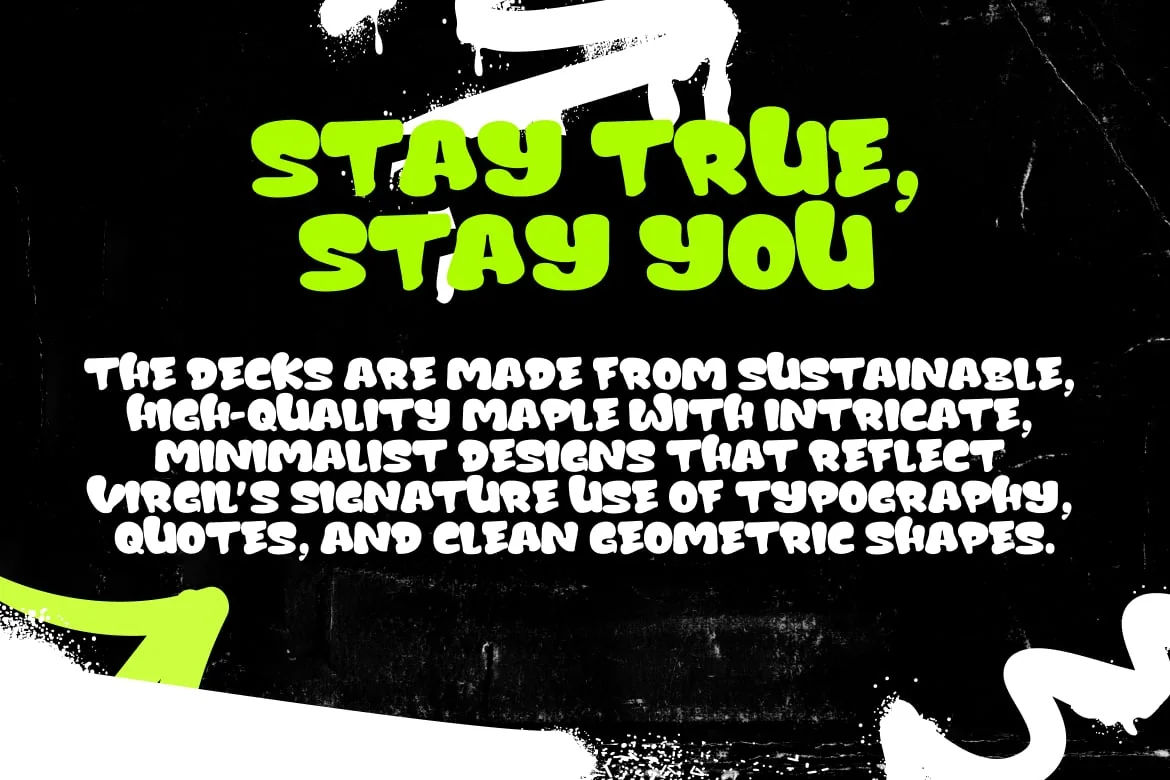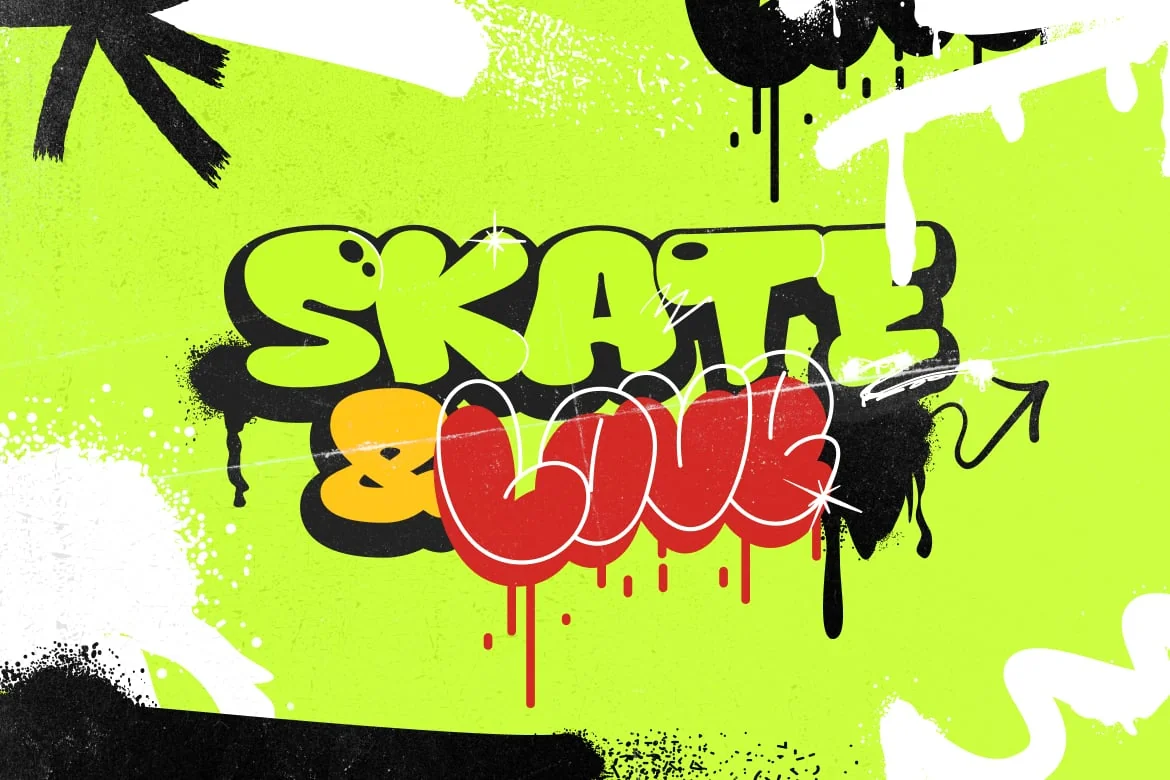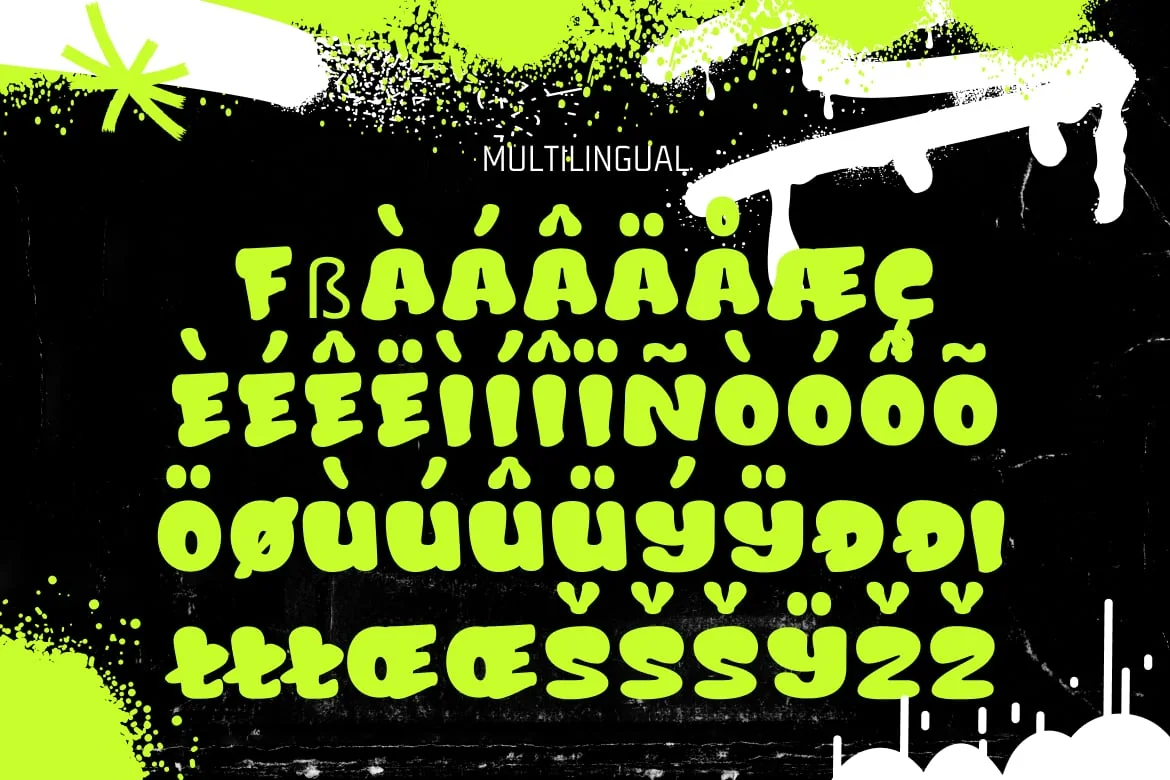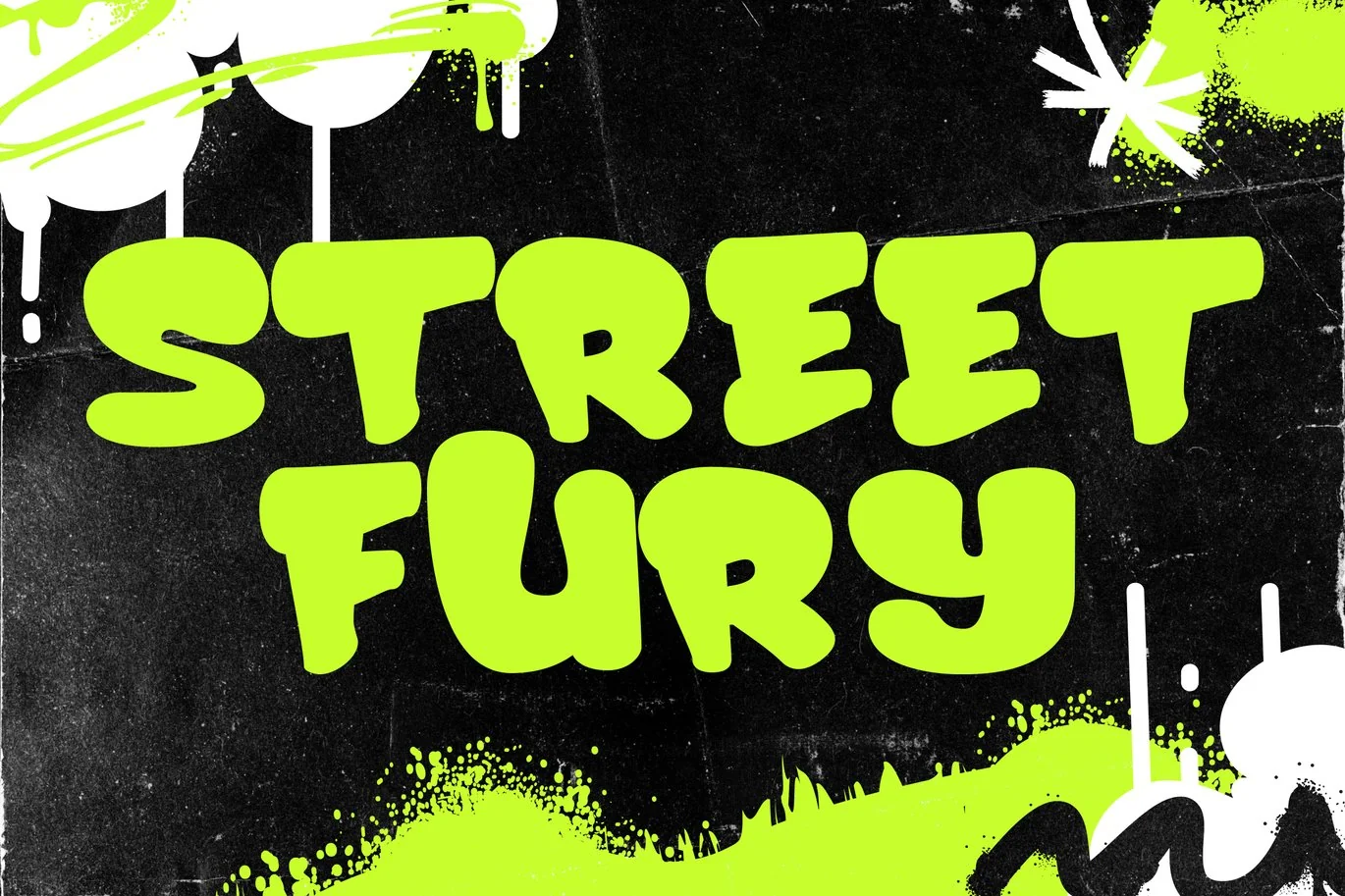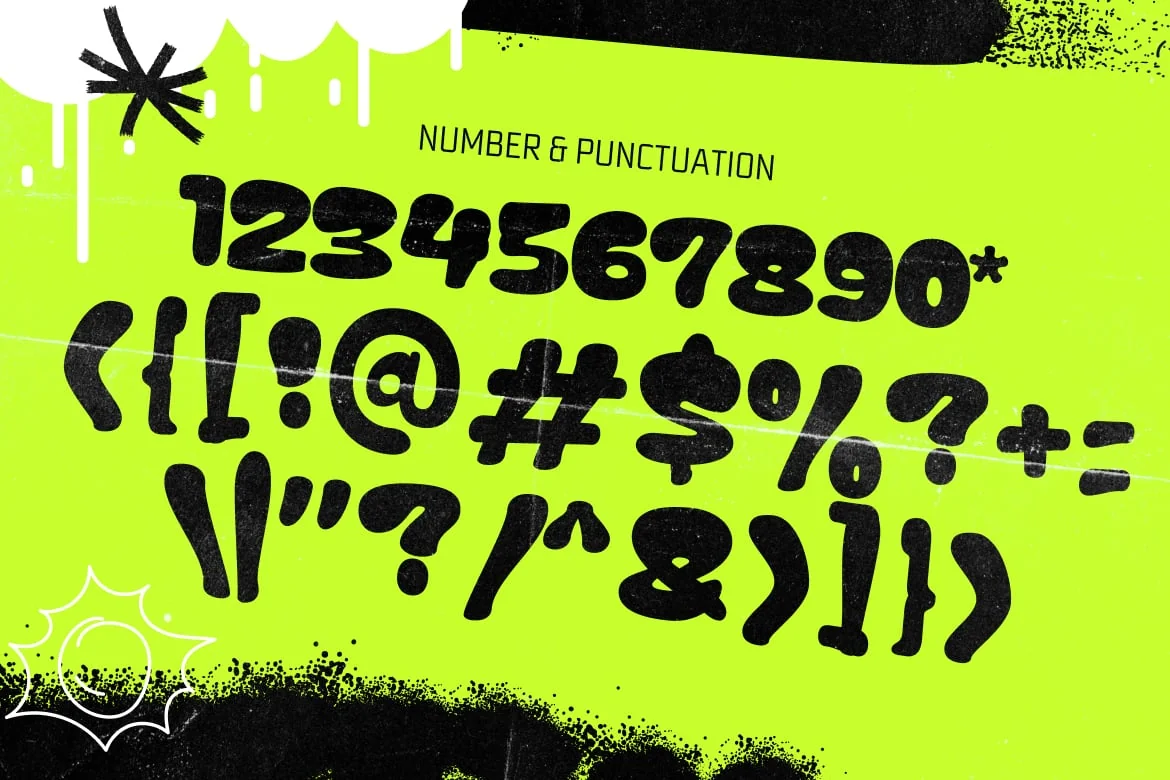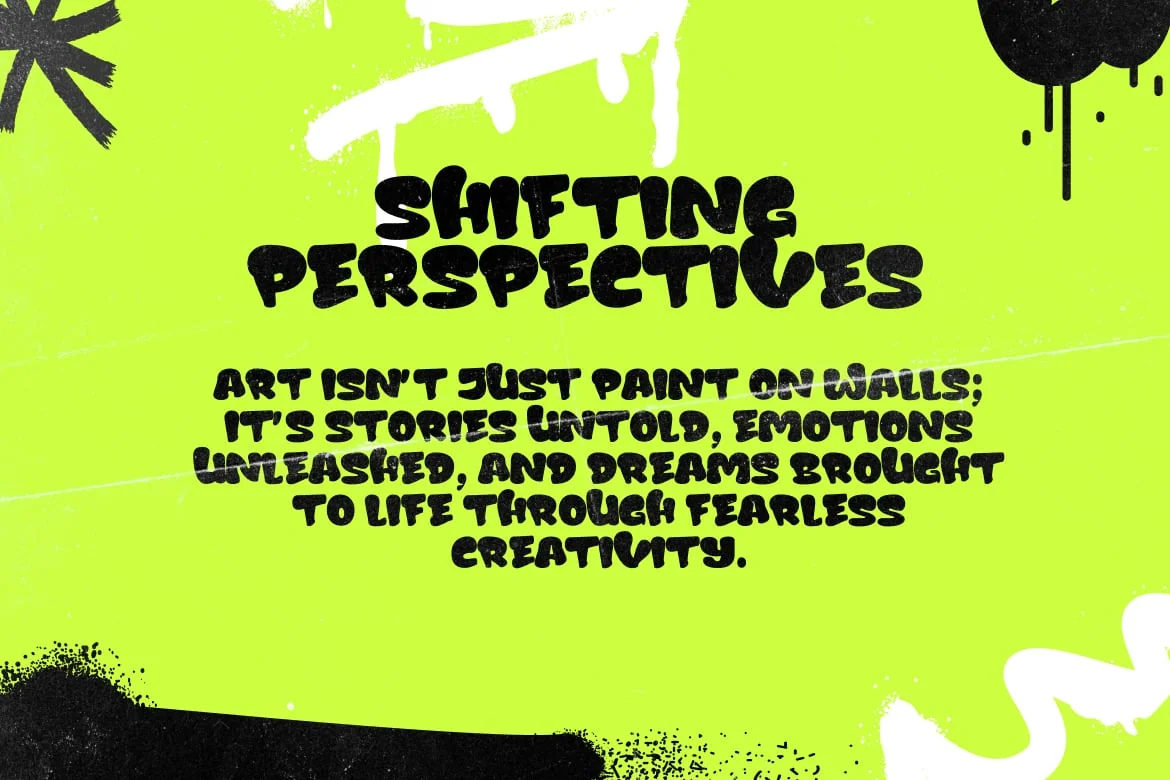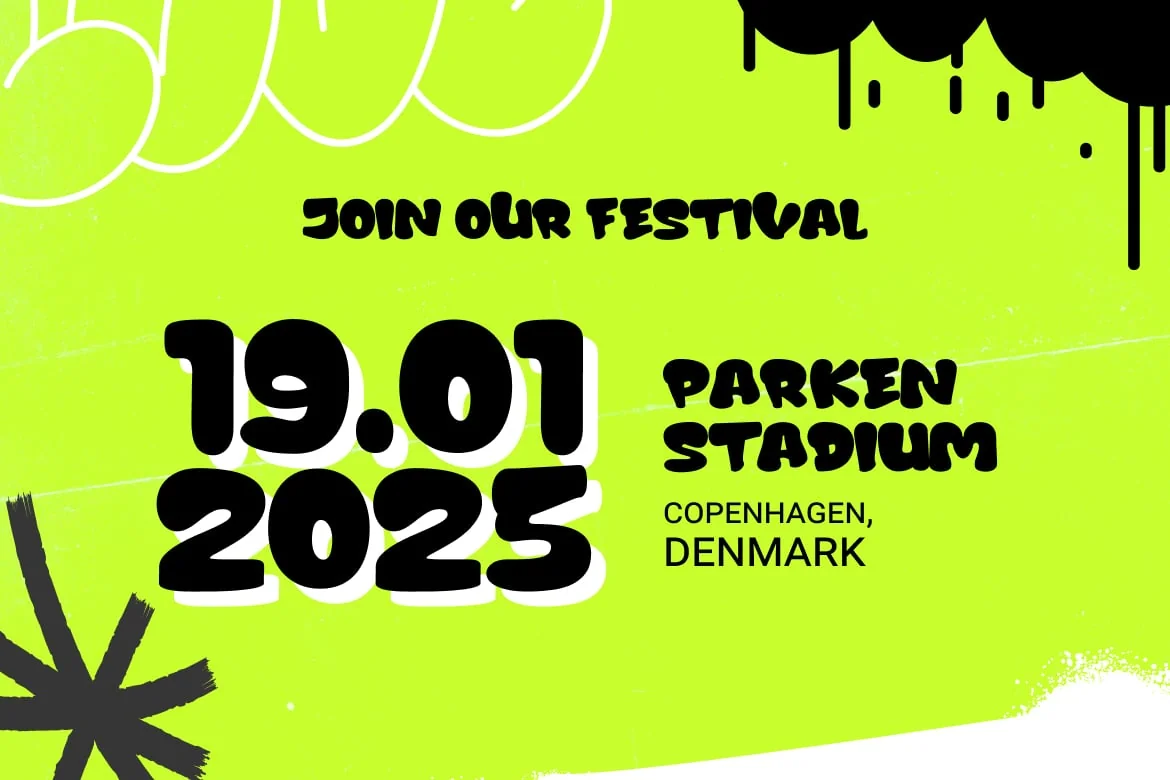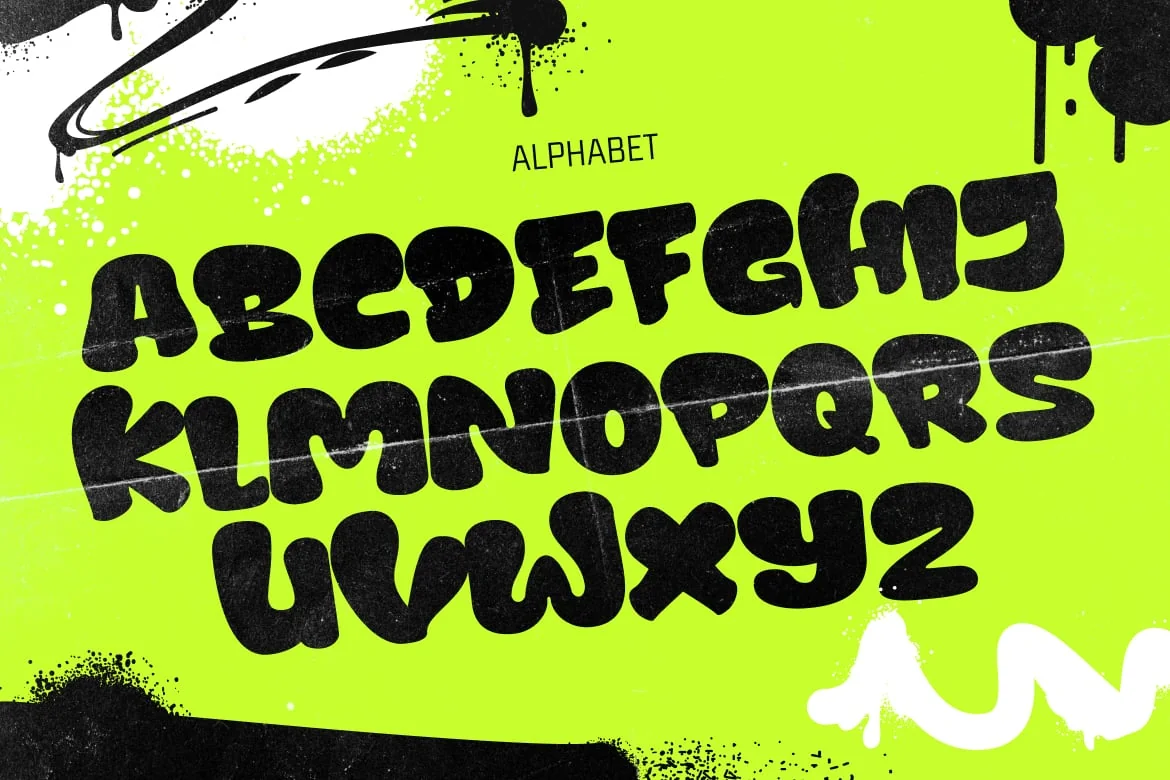
Urban Graffiti Font – Streetfury
Introducing Urban Graffiti Font – Streetfury – a Modern Professional Typeface excellent used for Heading or Title, Logotype, Merchandise, Clothing, Magazine, Corporate, Retro Festival, Vintage Event, Ticket and many more.